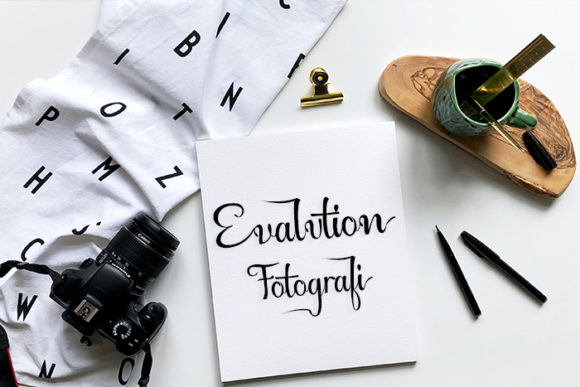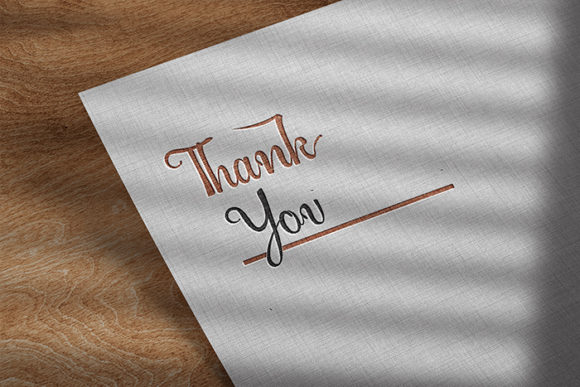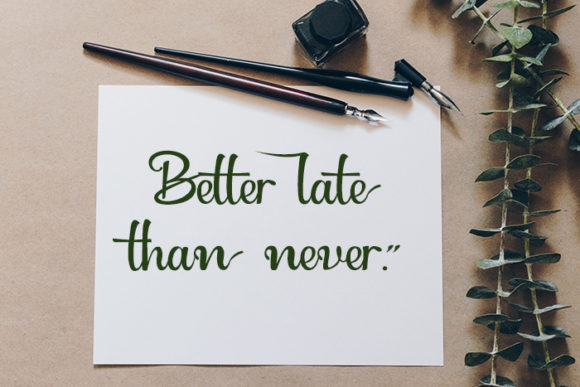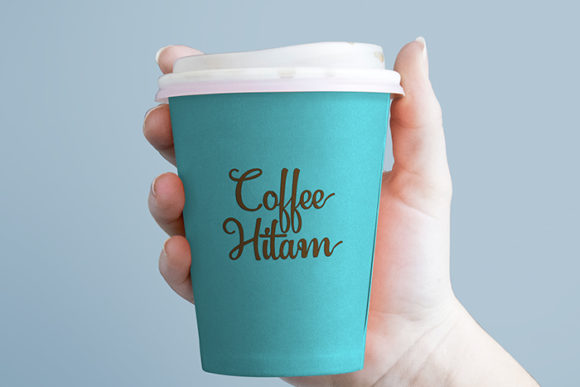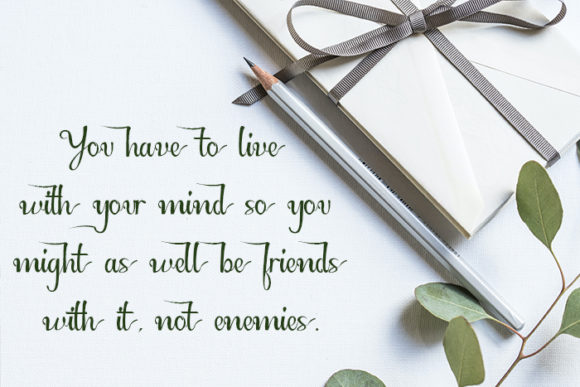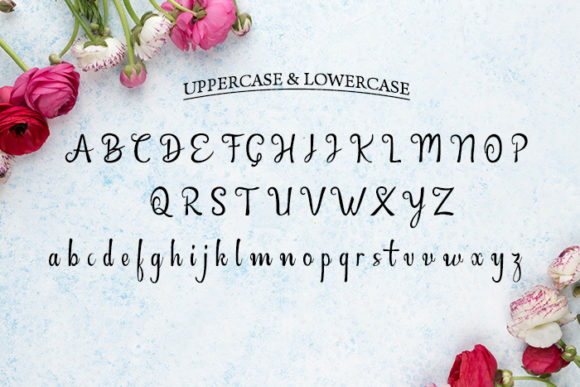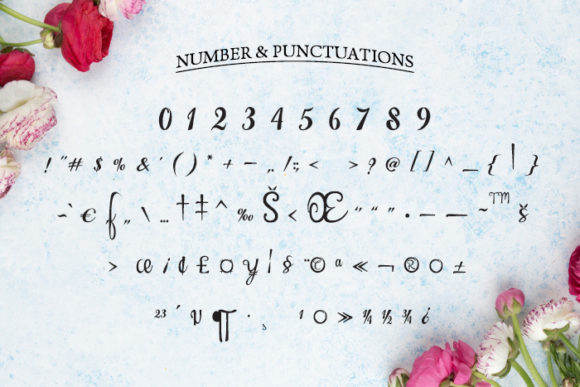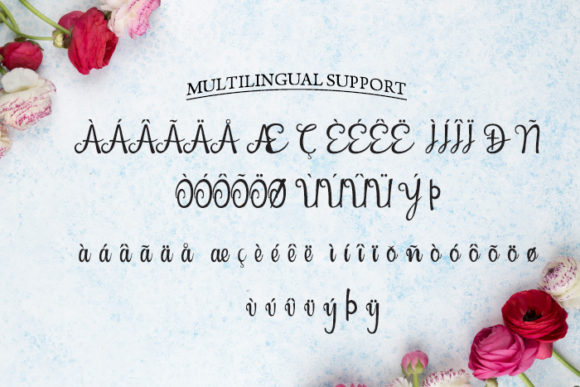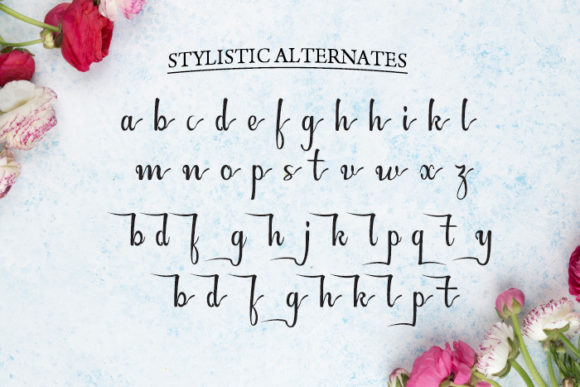
Britania Font
About Britania Font
Britania is an elegant and distinct handwritten font. It is PUA encoded which means you can access all of the glyphs and swashes with ease! Add Britania to your designs and make them come alive!